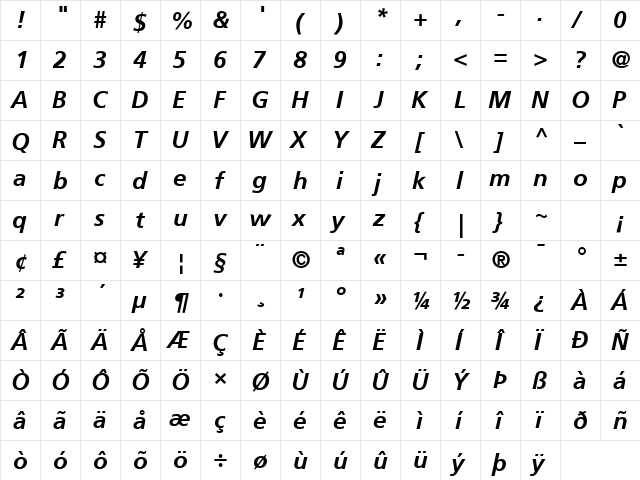
Frutiger LT Std 66 Bold Italic Font Preview
| Designer | Adrian Frutiger |
Design Context for Frutiger LT Std Typeface
Frutiger LT Std takes a measured approach to typography — its balanced proportions and neutral character make it a reliable workhorse for both digital and print work. The dynamic lean of this cut emphasises speed and emphasis in any layout. The heavy weight commands attention and anchors typographic hierarchies.